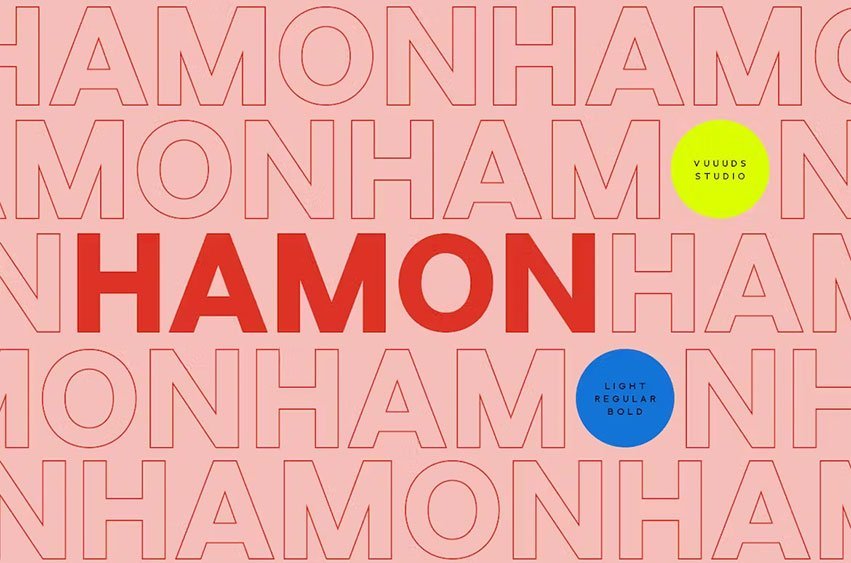
Hamon Font is modern sans-serif font with 3 different weights. Every single letter has been carefully crafted to make your text looks superbly awesome. Sans serif style this font will perfect for many different project.
- Foreign languages supported